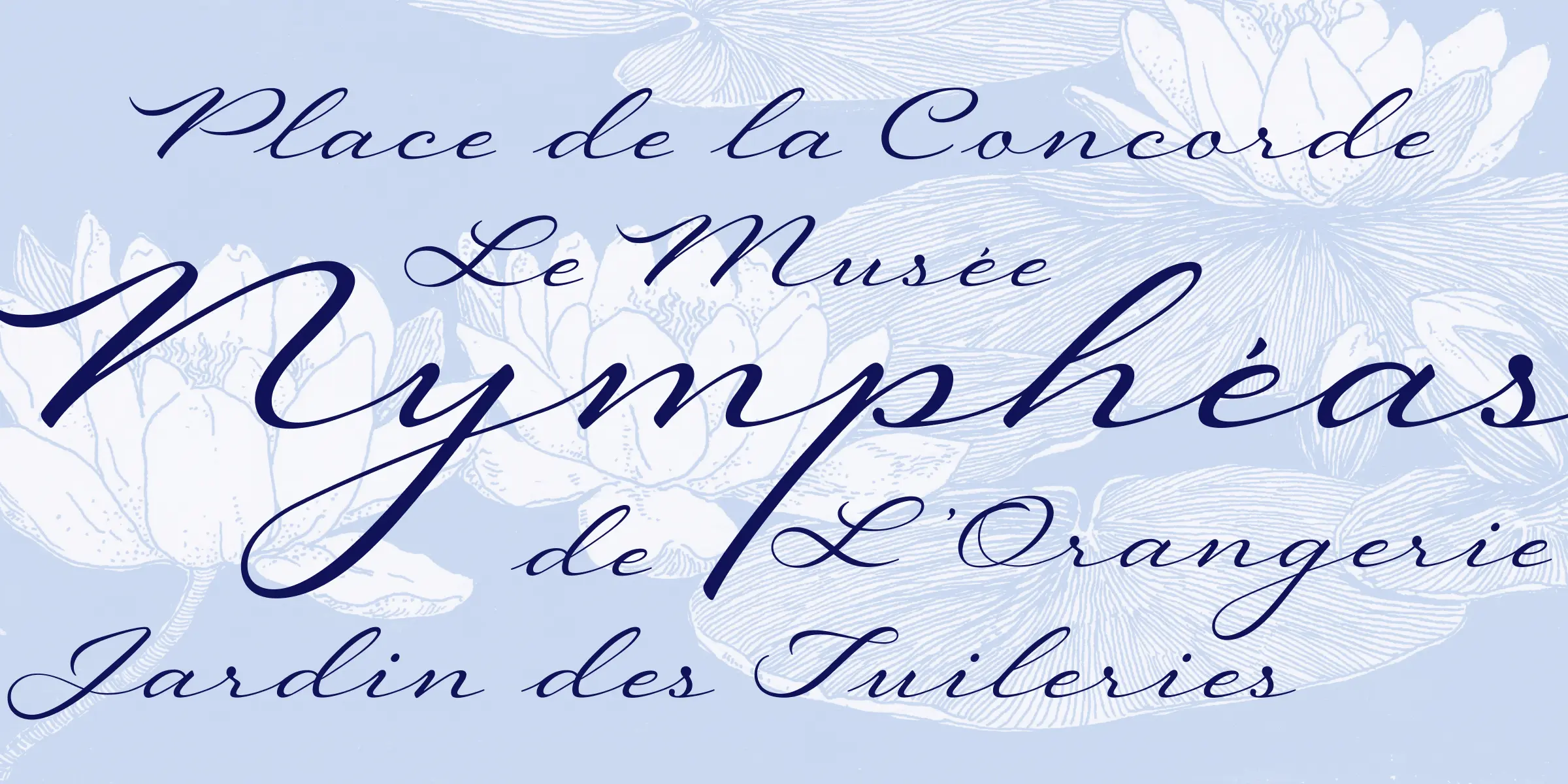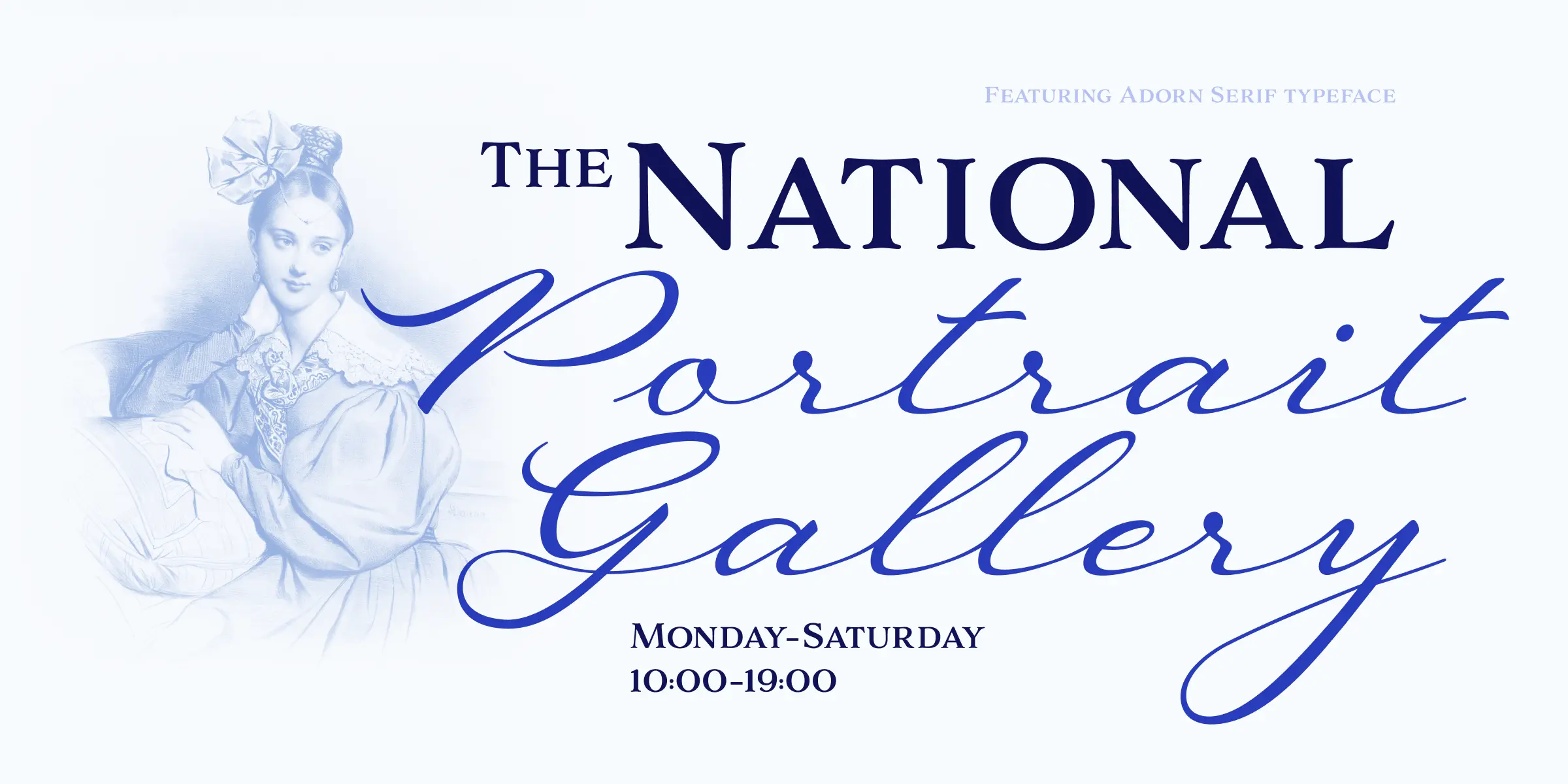
Regina
Regina is a broad, welcoming, and highly legible script. Its languorous letterforms are a reminder of an era when people took the time and care to share beautifully penned thoughts by hand. Regina shines when used in display or text settings on letters, invitations, and menus.